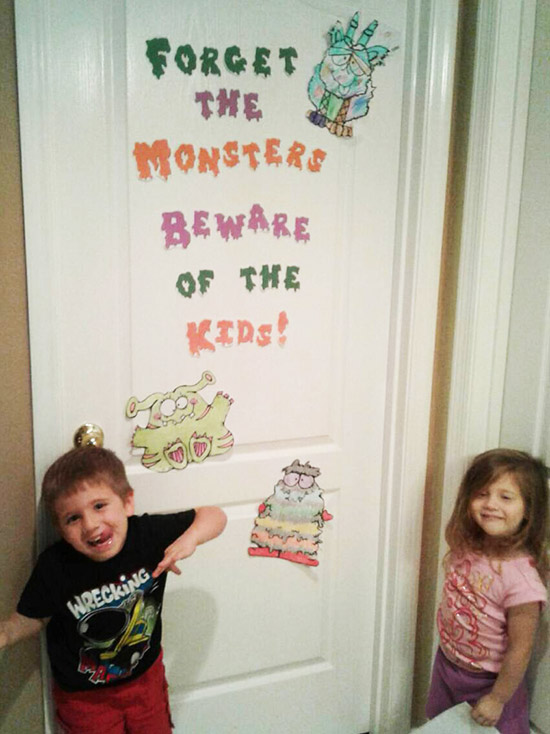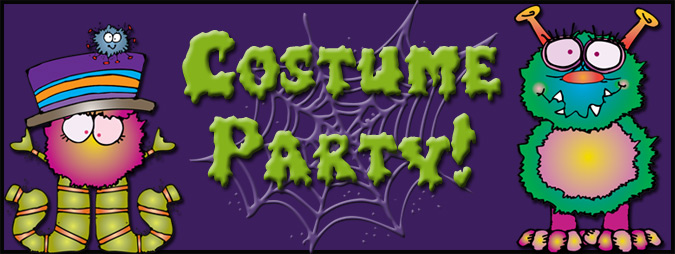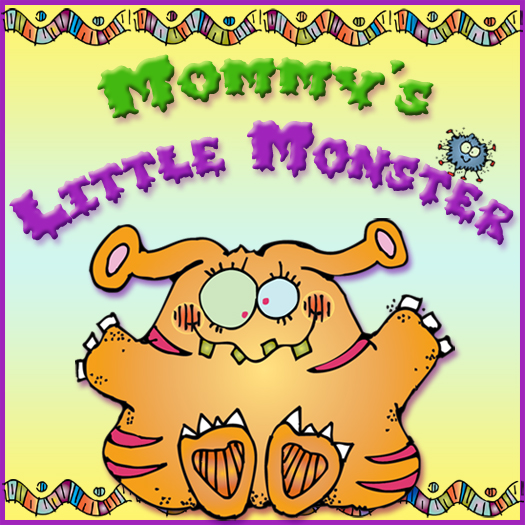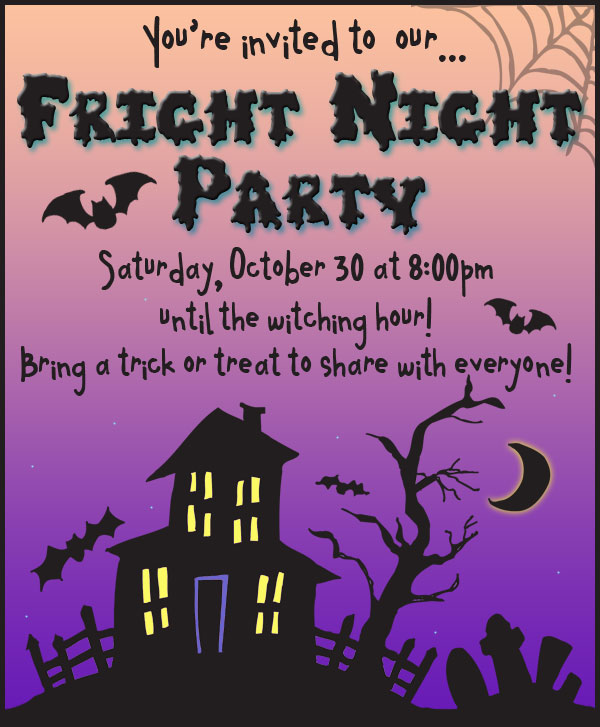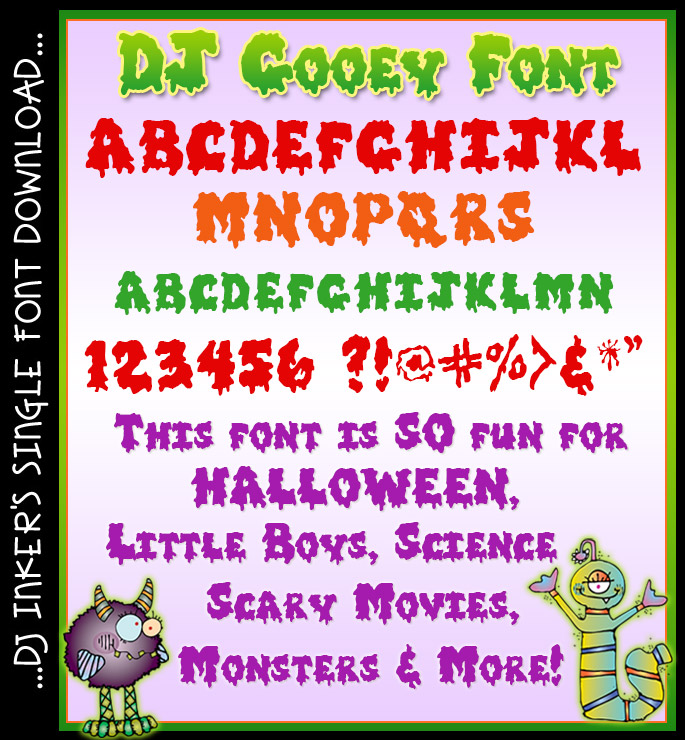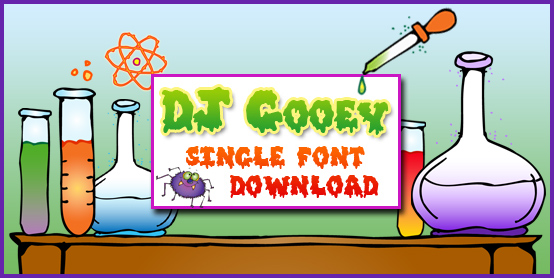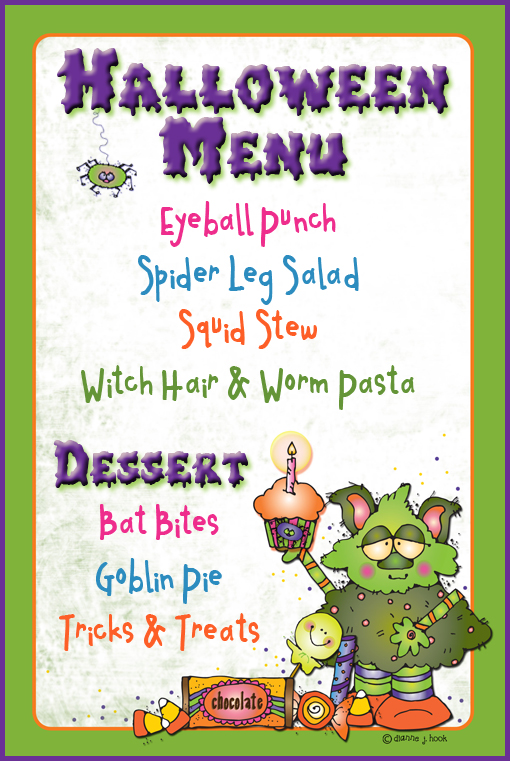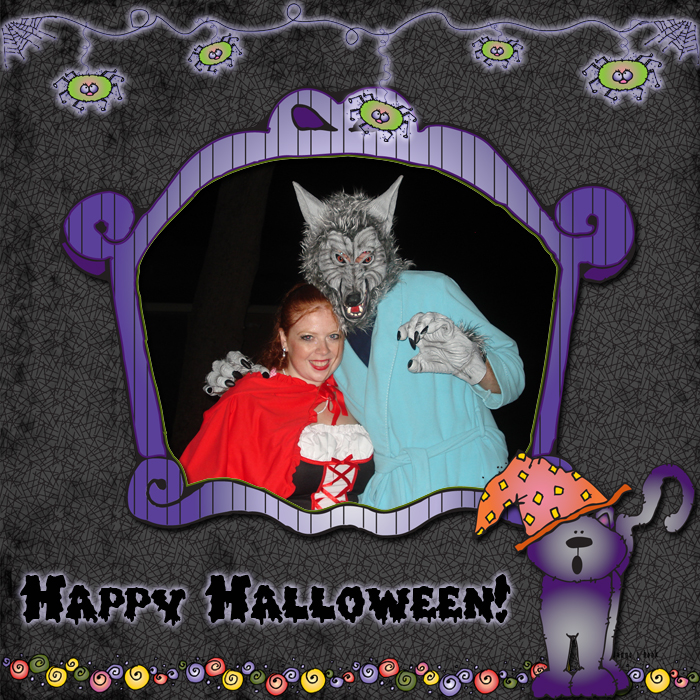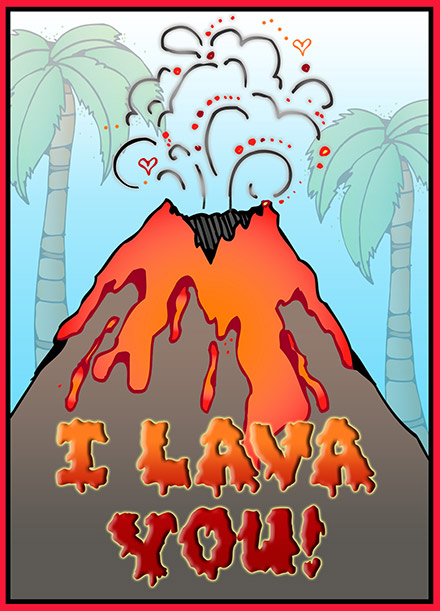
DJ Gooey is a fun drippy font for Halloween, scary movies, science, slime and more!
Add a little character to your font collection with DJ Gooey! This bold, drippy lettering is perfect for Halloween, little boys, scary movie night, science, monsters and more!  Have a little fun & try green for slime, orange for science or red for blood.